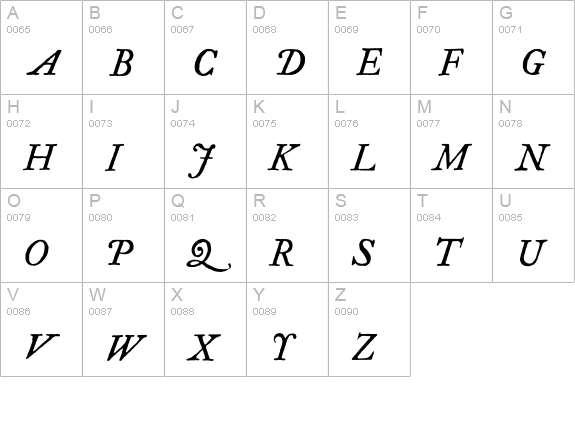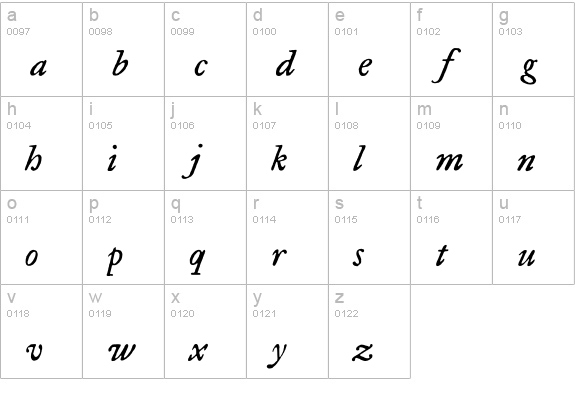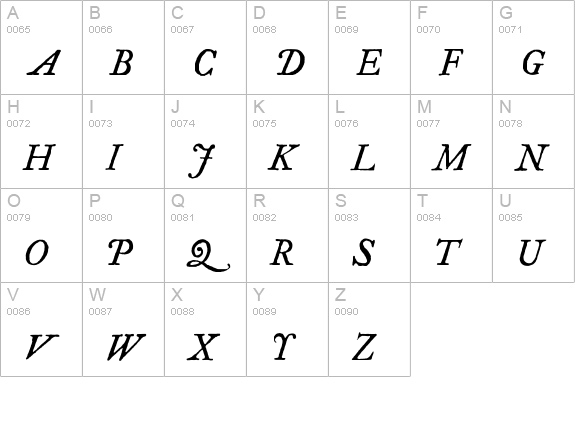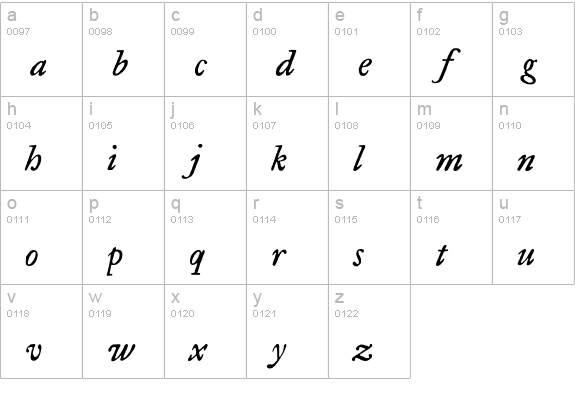
Historical-FellTypeItalic is a beautiful and elegant font that exudes a sense of historical charm and sophistication. Its delicate italic design pays homage to the classic serif fonts of the past, making it perfect for projects that require a touch of timeless elegance. The flowing lines and graceful curves of Historical-FellTypeItalic add a touch of refinement to any text, making it ideal for use in invitations, menus, book covers, and other design projects where a touch of old-world charm is desired. What sets Historical-FellTypeItalic apart is not just its beauty, but also the fact that it is available for free download at FontsMarket.com. This means that you can add this stunning font to your collection without any cost, making it accessible to all designers and creatives who appreciate its unique style and historical flair. Whether you're working on a personal project or a professional design, Historical-FellTypeItalic is sure to elevate your work and bring a touch of timeless beauty to your typography.